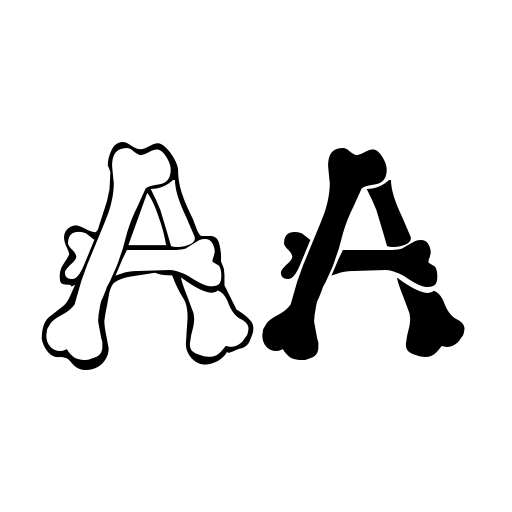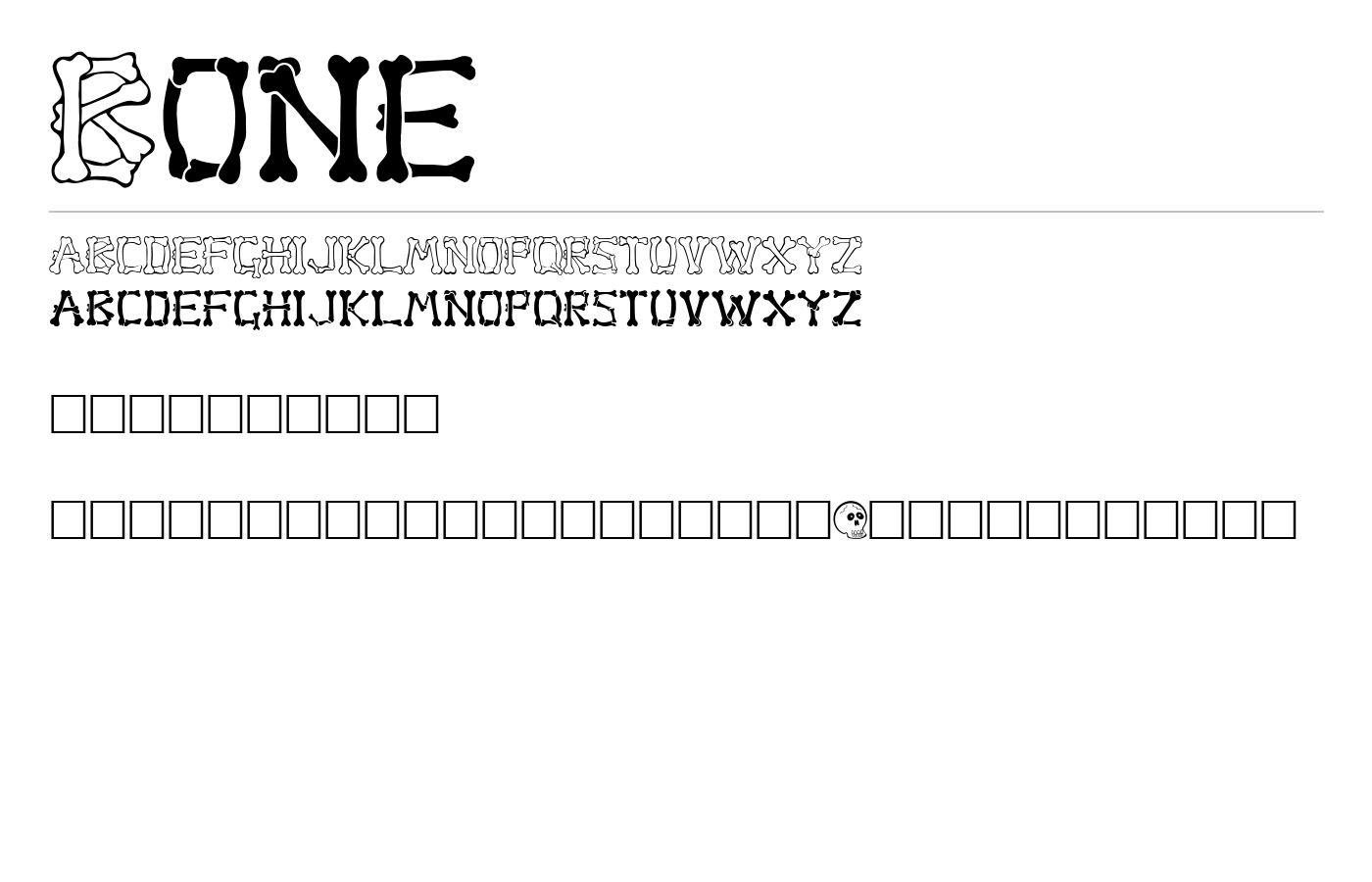
Bone Font is a playful and decorative display typeface inspired by the shape of bones, featuring irregular, chunky strokes that give it a quirky and slightly spooky character. Its bold and whimsical style makes it perfect for themed designs such as Halloween graphics, children’s books, or novelty branding where a fun yet eerie atmosphere is desired. This font works best in headlines, logos, and posters where its unique and eye-catching bone motif can stand out and add personality.
Bone Font